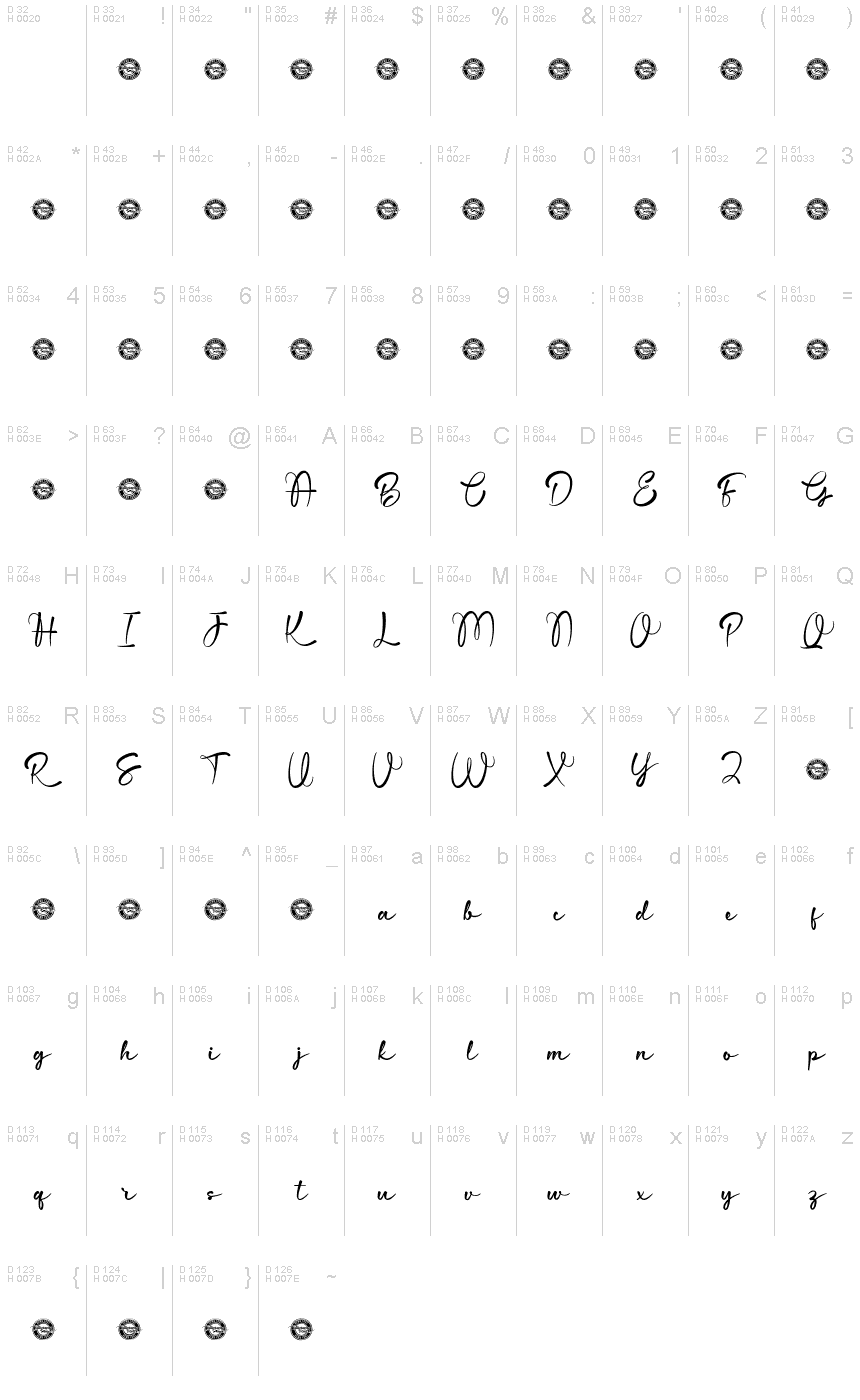
Ralins Demo Script
and elegant curves, perfect for wedding invitations, greeting cards and other sophisticated projects.Ralins Script by Calligraphy Fonts is the perfect semi-light handwritten font for your next project. With its beautiful and elegant curves, this font is sure to add a touch of sophistication to any design. Whether you're working on wedding invitations, greeting cards or any other project that requires a touch of elegance, Ralins Script is the ideal choice. Its unique style and semi-light weight make it stand out from other fonts and give your designs a truly personalized look. So why settle for ordinary when you can have extraordinary? Choose Ralins Script for your next project and create something truly beautiful.